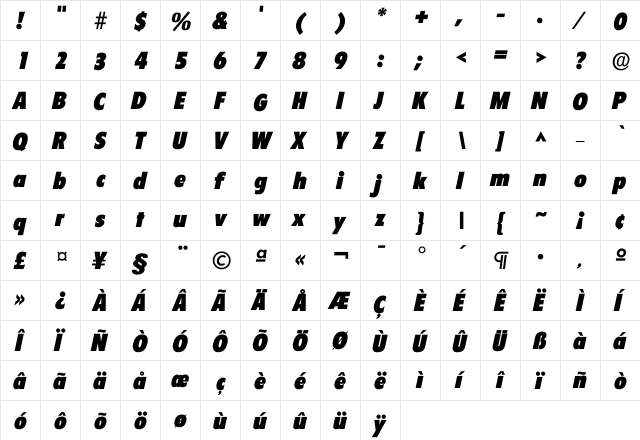
IFlorida Black
Design Context for IFlorida Typeface
IFlorida offers clean, dependable letterforms without strong stylistic allegiance, making it a practical choice for designers who need flexibility.